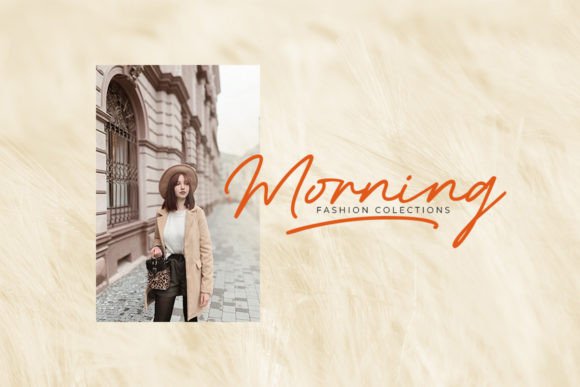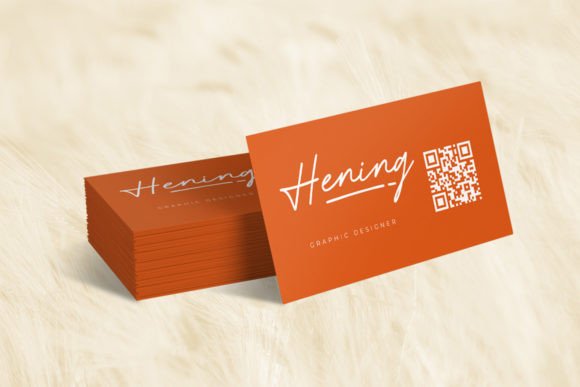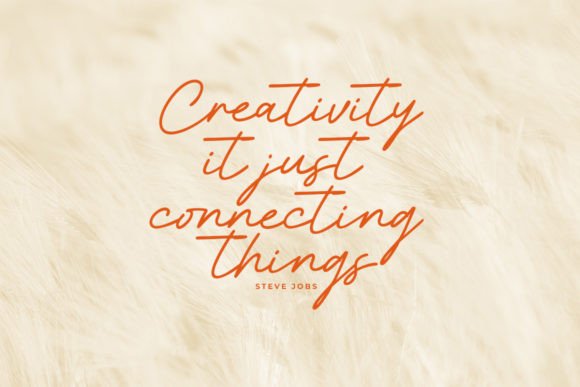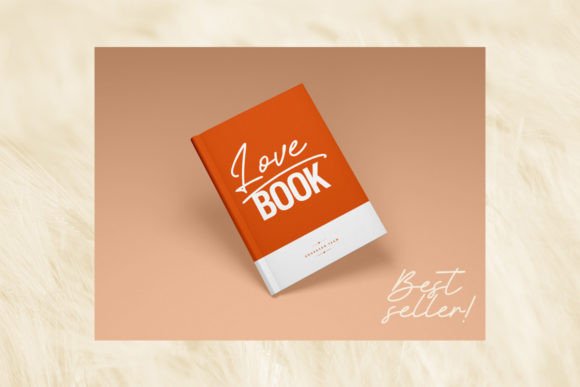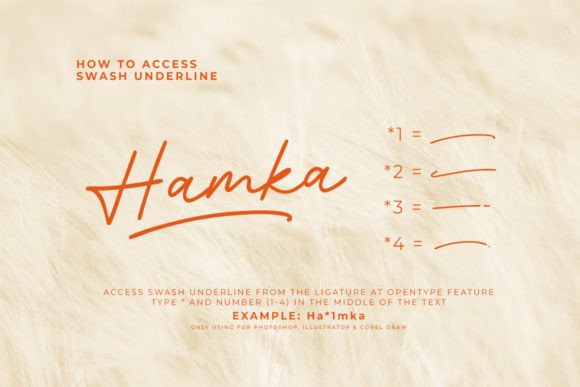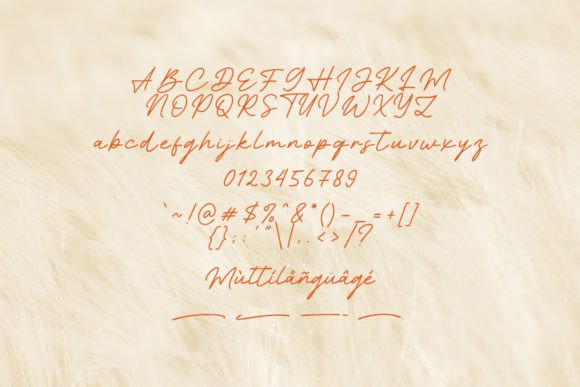
Introducing Evening Wind Font: Elevate Your Designs with Elegance
Are you on the hunt for a font that exudes sophistication, modernity, and style? Look no further than the Evening Wind Font, a stunning script font that is perfect for a wide range of design projects. From posters and logos to magazines, book covers, and banners, this versatile font is sure to make your creations stand out from the crowd.
What is Evening Wind Font?
Evening Wind Font is a clean, stylish, modern, and elegant script font that has been carefully crafted to meet the needs of designers and crafters. Its unique blend of classic and contemporary elements makes it an ideal choice for anyone looking to add a touch of sophistication to their designs. Whether you’re working on a personal project or a client’s, this font is sure to impress.
Key Features of Evening Wind Font
- Clean and Elegant Design: The Evening Wind Font boasts a clean and elegant design that is perfect for creating sophisticated and modern designs.
- Highly Versatile: This font can be used for a wide range of projects, including posters, logos, magazines, book covers, banners, and more.
- Easy to Read: The Evening Wind Font is highly legible, making it perfect for use in both print and digital media.
- Scalable: This font is highly scalable, meaning it can be used in a variety of sizes without losing its elegance and sophistication.
Design Ideas Using Evening Wind Font
The Evening Wind Font is incredibly versatile, and can be used for a wide range of design projects. Here are a few ideas to get you started:
- Posters and Flyers: Use the Evening Wind Font to create eye-catching posters and flyers for events, promotions, and more.
- Logos and Branding: Create a professional and sophisticated logo for your business or brand using the Evening Wind Font.
- Magazines and Brochures: Use the Evening Wind Font to add a touch of elegance to your magazine or brochure designs.
- Book Covers: Create a stunning book cover using the Evening Wind Font, perfect for fiction and non-fiction books alike.
- Banners and Signs: Use the Evening Wind Font to create eye-catching banners and signs for events, promotions, and more.
Why Choose Evening Wind Font?
There are many fonts available on the market, but the Evening Wind Font stands out from the rest. Here are a few reasons why:
- Unique Design: The Evening Wind Font boasts a unique and elegant design that is sure to make your designs stand out.
- Highly Versatile: This font can be used for a wide range of projects, making it a great addition to any designer’s toolkit.
In conclusion, the Evening Wind Font is a stunning script font that is perfect for designers and crafters looking to add a touch of elegance and sophistication to their designs. With its clean and elegant design, high versatility, and ease of use, this font is sure to become a favorite in your design toolkit. So why wait? Download the Evening Wind Font today and start creating stunning designs that are sure to impress!